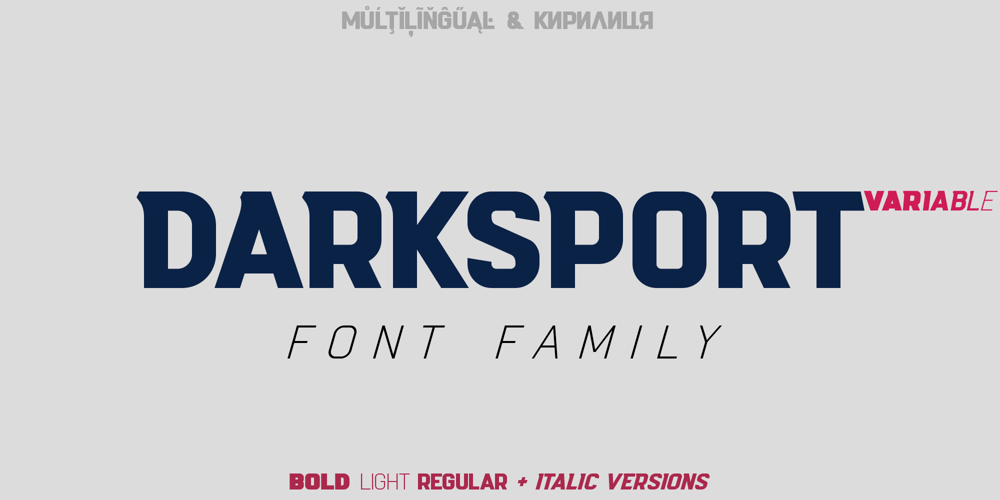
Dark Sport Font Family was designed by Dmytro Poliakh and published by Sentavio. Dark Sport contains 7 styles and family package options. Darksport is an authentic sports branding Font Family of six fonts. It is perfect for sports logos, posters, labels and much more. There is also Variable Version included!There is a stylistic difference between Uppercase and Lowercase letters (see the preview images).Multilingual support (LatinPro & Slavian Cyrillic).